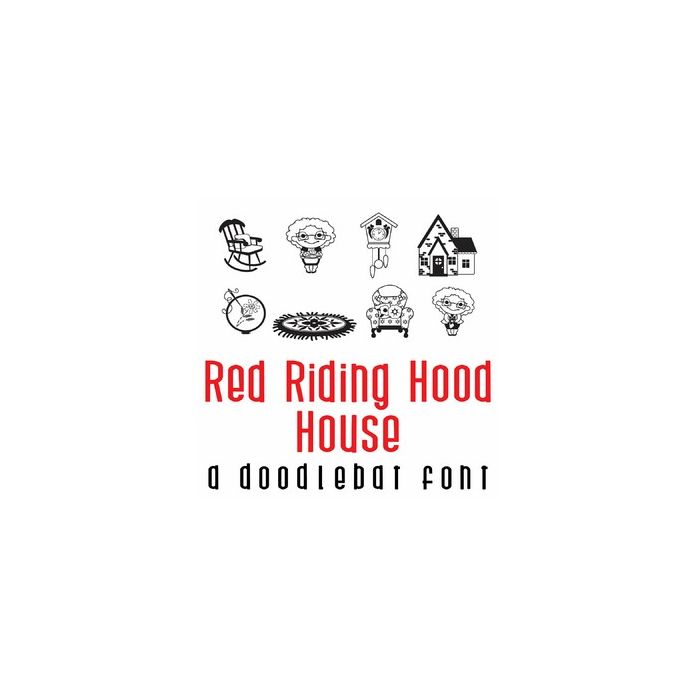
This adorable doodlebat font features 26 images from a classic grandmother's house. Perfect for cards, crafts, gifts, classrooms, teachers, planner stickers, parties, scrapbook pages and more!